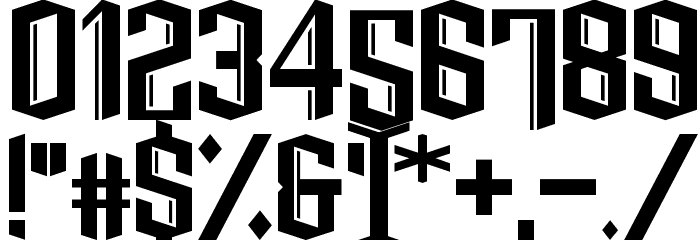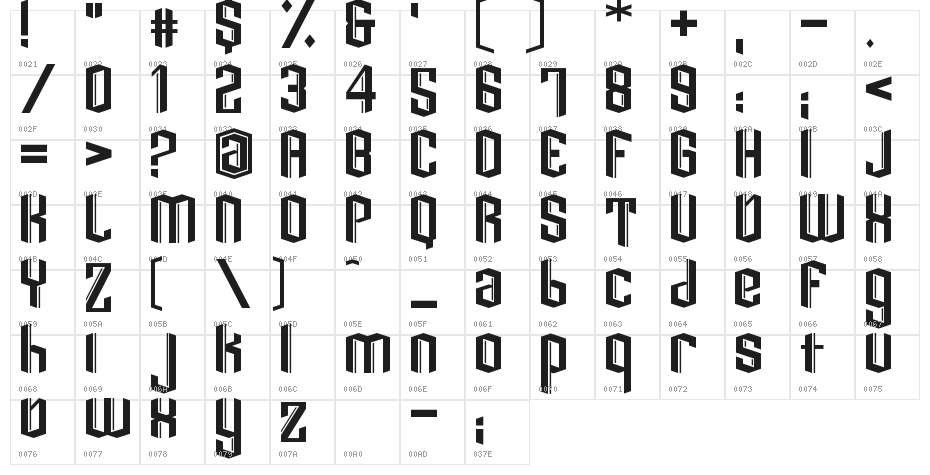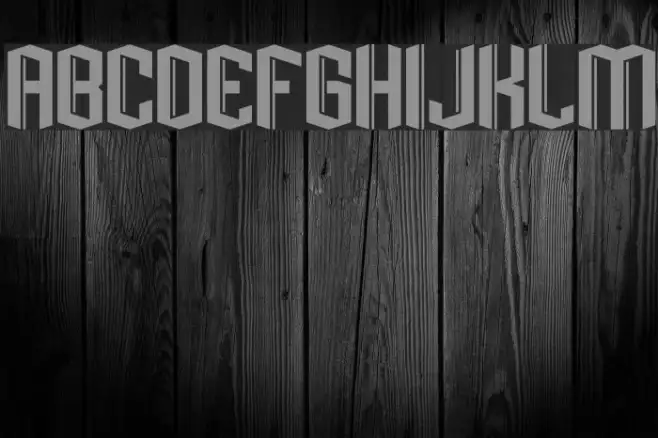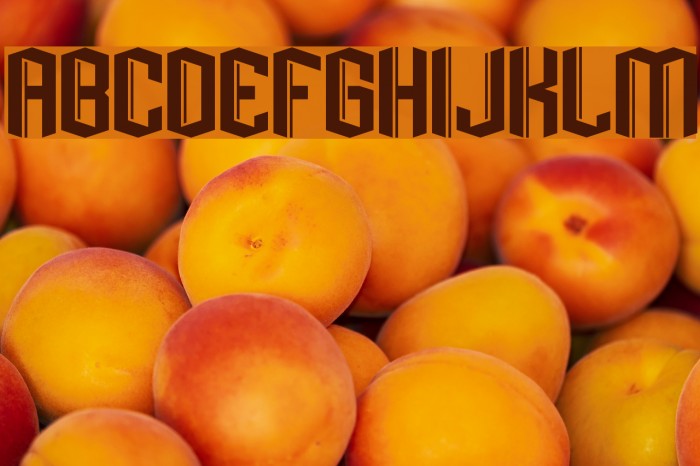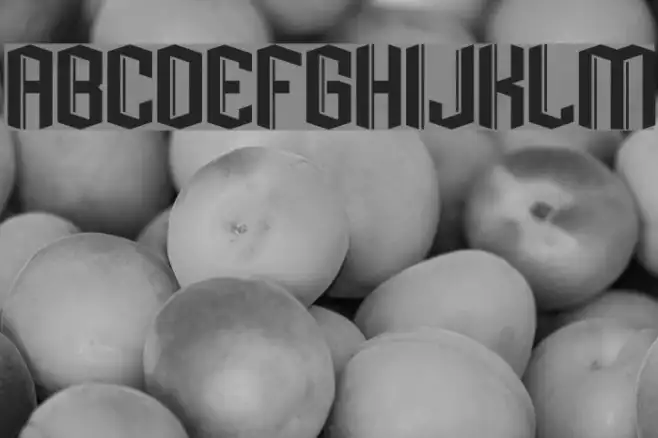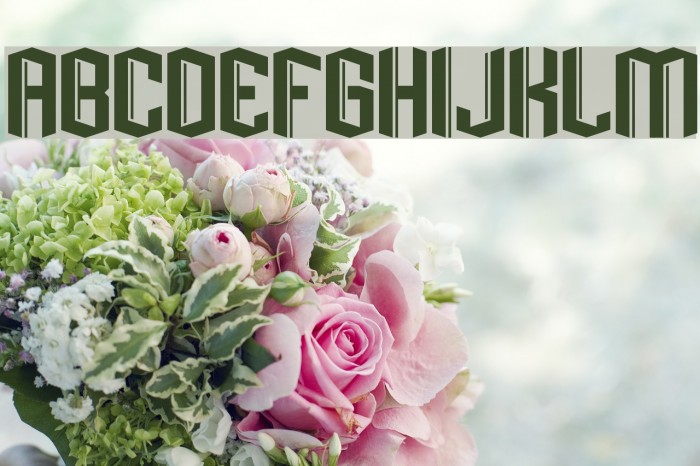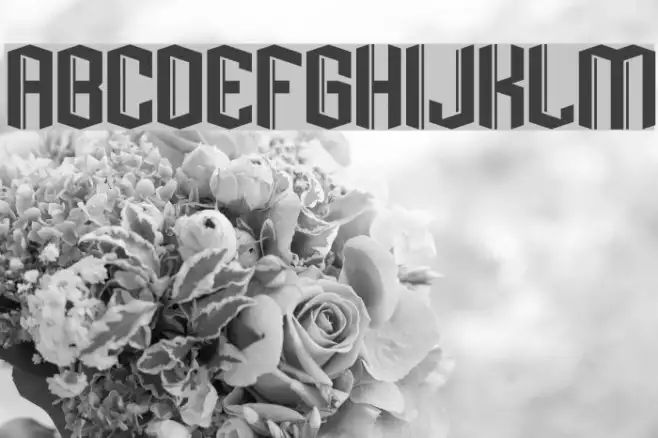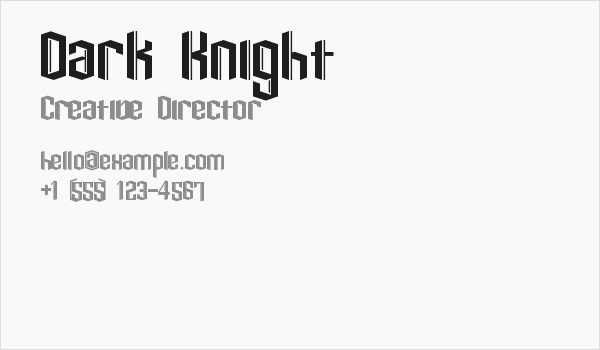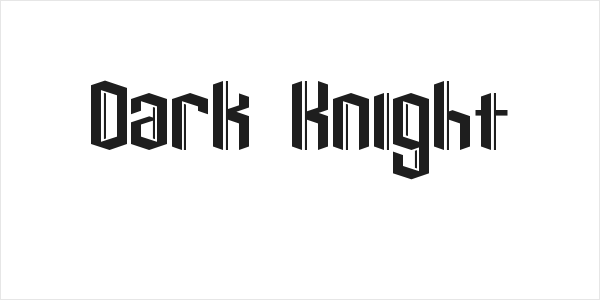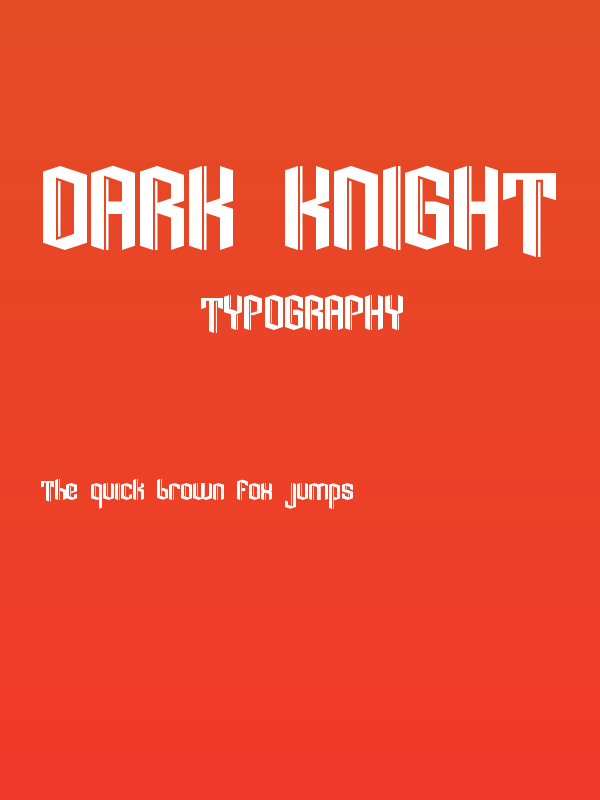
Dark Knight Font
Dark Knight Description
This font features a bold, angular design with a strong geometric influence, characterized by sharp edges and a blocky appearance. The uppercase and lowercase letters maintain a consistent height, creating a uniform look across the text. The numbers and special characters follow the same design principles, ensuring a cohesive style throughout. The font's unique aesthetic is reminiscent of a futuristic or industrial theme, making it stand out with its striking visual impact. The boldness of the characters is complemented by a moderate spacing, allowing for readability while maintaining its distinctive style.
| Proposed Projects | Ideal for projects requiring a strong, modern aesthetic such as posters, video game graphics, or branding for tech companies. |